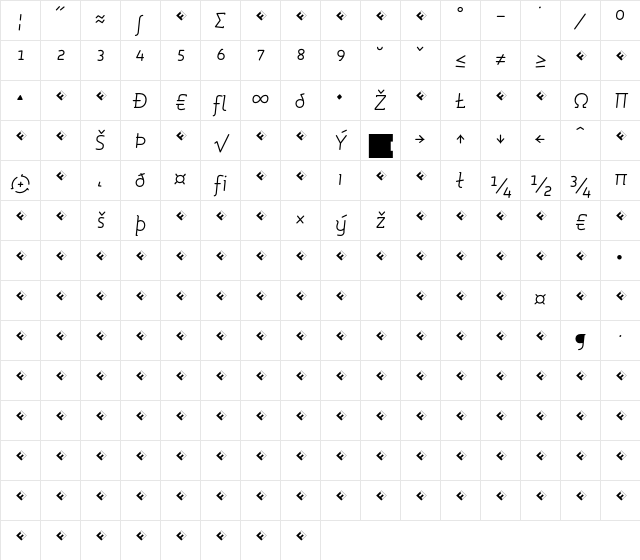
Roice-LightItalicExpert Regular
Design Context for Roice-LightItalicExpert
Roice-LightItalicExpert is a composed and adaptable typeface that performs quietly and consistently across a wide range of design contexts. The slanted form adds forward momentum and visual energy. Its slender proportions lend an understated elegance to any composition.
Pro Tip: Use Roice-LightItalicExpert for emphasis, pull quotes, and subheadings where its slanted energy can add rhythm to the layout.